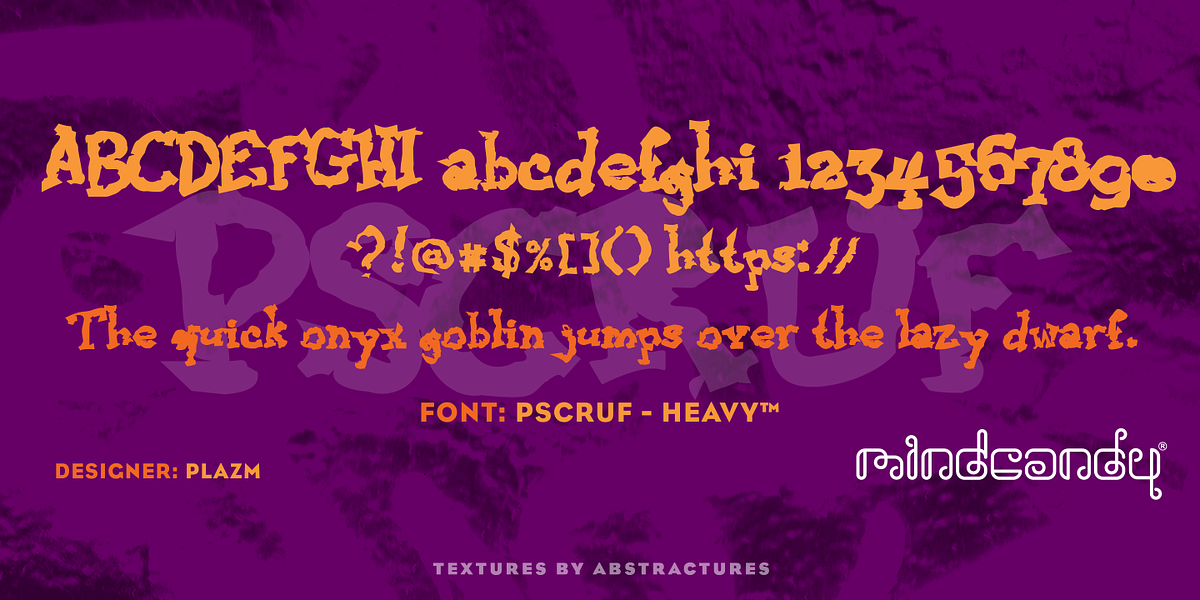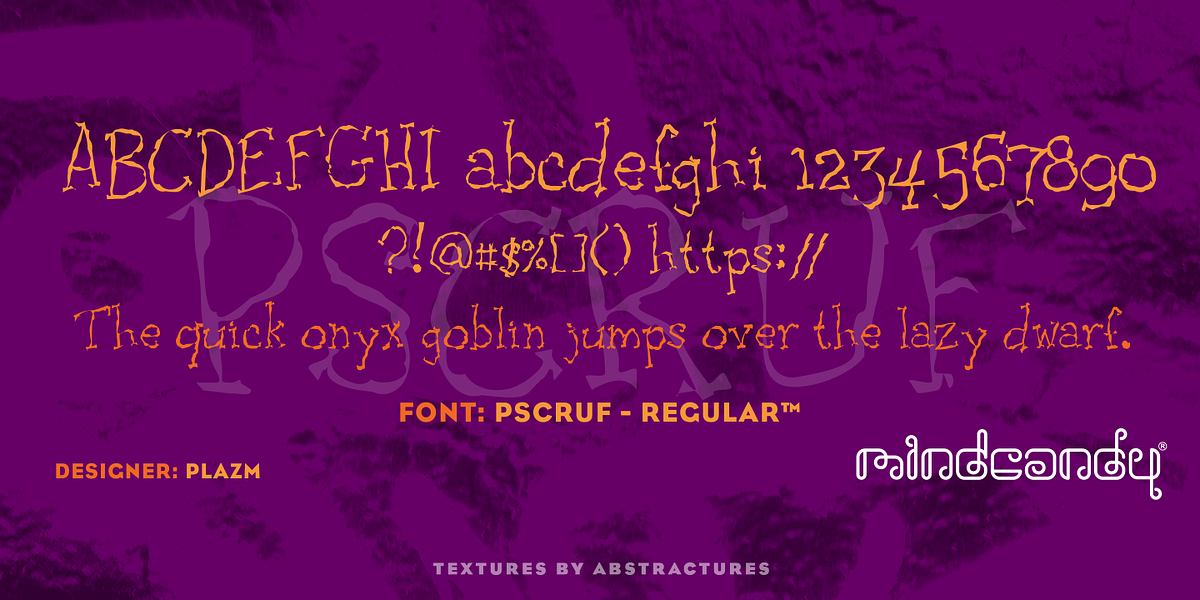
Pscruf™
This display font features a unique, crashed aesthetic. Its rough and distressed appearance lends itself well to headlines, posters, and branding projects seeking a vintage or edgy feel.